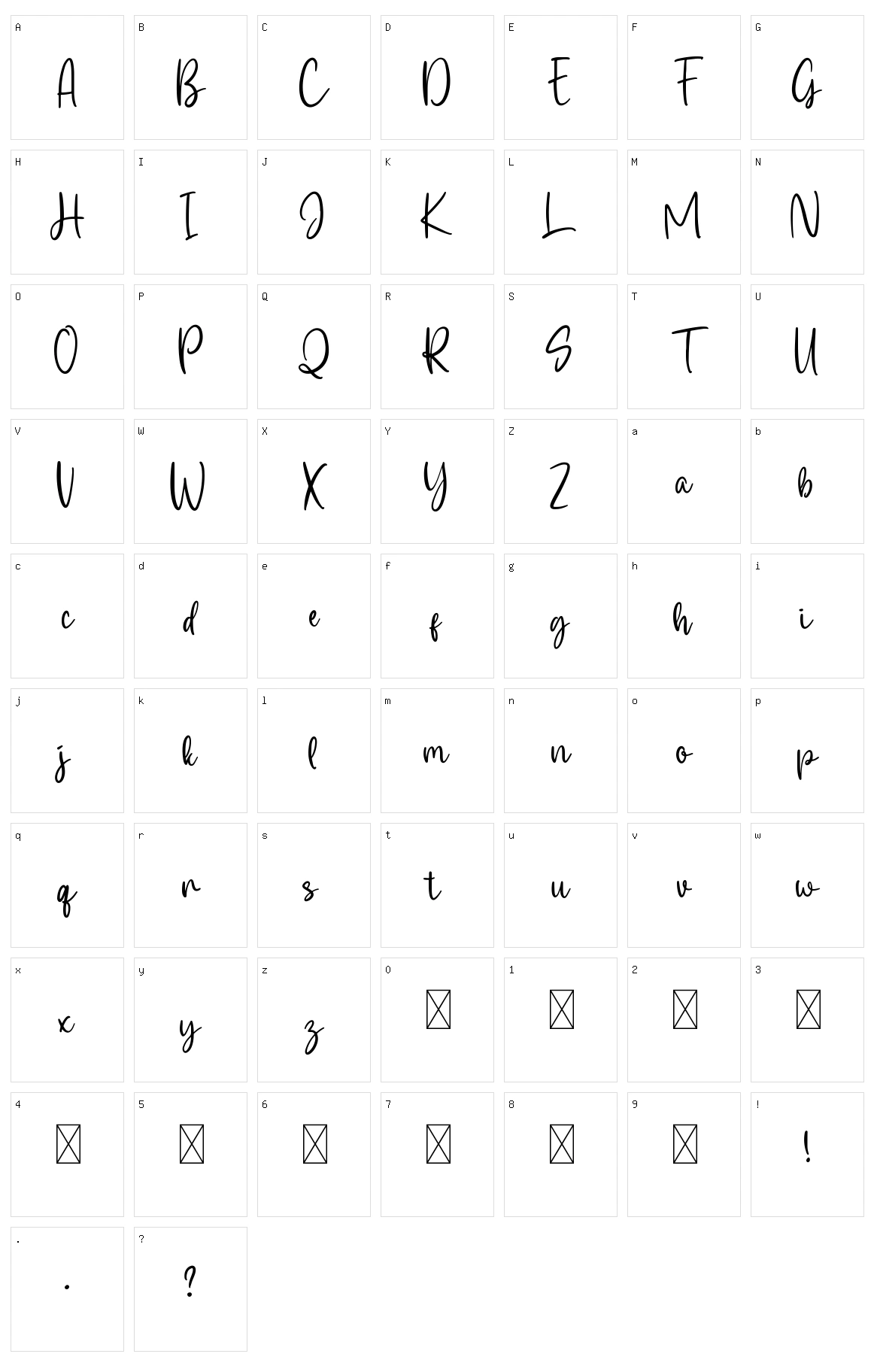
The free font Frederica is carefully designed by lyanatha, showcasing a thoughtful balance of creativity and usability and falls under the Script font style. When you download the ZIP file, it contains only 12.01 KB of font files, making it lightweight and quick to download. Please review the license details below to understand permitted usage and distribution rights. If license information is not available, we recommend using this font for personal projects only or contacting the author directly for commercial usage permissions.